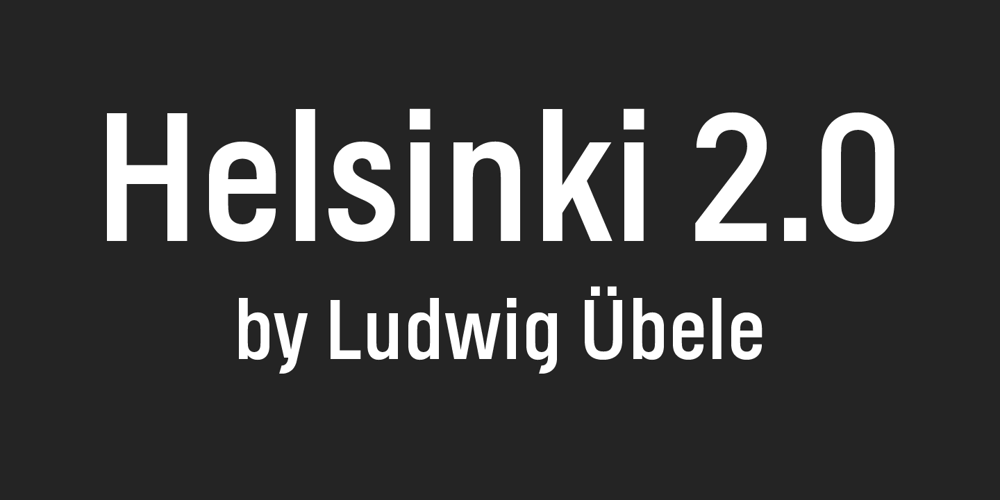
Helsinki Font Family was designed by Ludwig Übele and published by Ludwig Type. Helsinki contains 15 styles and family package options. Helsinki 2.0 is a completely updated version of our popular Helsinki typeface. We expanded the character set, changed the weight structure, and also added italics. Helsinki is inspired by the Finnish traffic sign typeface. It is based on geometric shapes, with technical and masculine forms. Helsinki is rather narrow, which makes it well suited to headlines and short text.